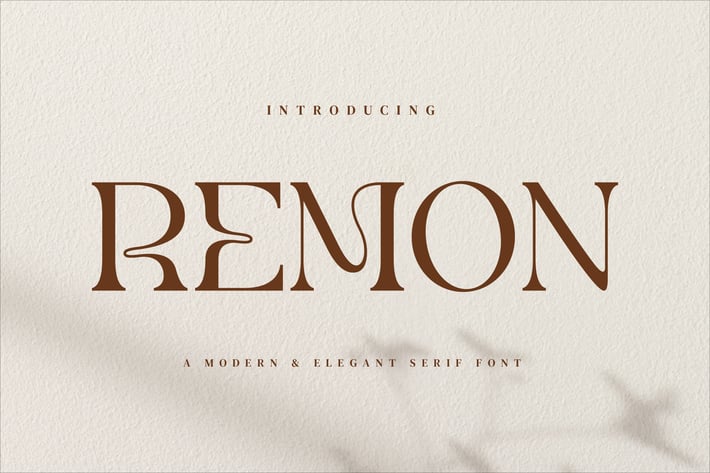
Remon Elegant Serif Font
Remon Stylish Ligature Typeface, inspired by the famous minimalist logo perfect for the purposes of designing templates, brochures, videos, advertising branding, logos and more.